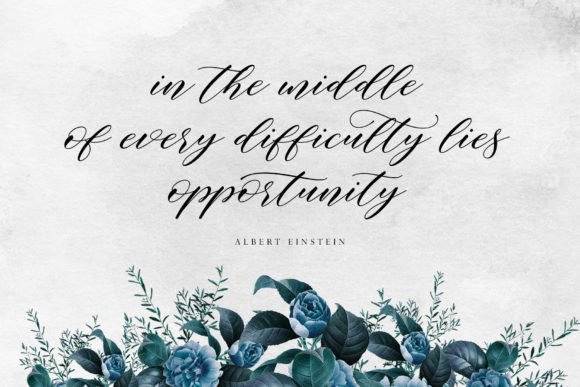
Introduction to Matilha Font
Have you ever stared at a blank sheet of paper, waiting for inspiration to strike? As designers, we’ve all been there. But what if that blank slate could be transformed into a stunning work of art with just the right font? Enter Matilha Font, a modern calligraphy font that’s about to revolutionize your creative projects.
This elegant, stylish, and soft italic font is the perfect addition to any design resource. With its high-quality glyphs and ligatures, you’ll be able to bring your ideas to life in a way that’s both sophisticated and eye-catching. And the best part? Matilha Font is available for free download, making it an invaluable resource for designers of all levels.
Whether you’re working on a logo, branding project, or homeware design, Matilha Font is sure to impress. Its transparent background and versatile style make it the perfect choice for any creative project, from posters and shopping bags to t-shirts and book covers.
Key Features of Matilha Font
- Includes a comprehensive character set, including Latin and Cyrillic alphabets
- Designed with a unique, modern aesthetic, perfect for designers seeking a distinctive look
Honest Review: Matilha Font
As a designer, I’m always on the lookout for high-quality design resources to elevate my creative projects. Recently, I stumbled upon the Matilha Font, and I’m excited to share my thoughts on it.
What works well: ✨ The Matilha Font is a free download, which is a huge plus in my book. It’s also a versatile font that can be used for a variety of design projects, from logos to branding materials. I appreciate the transparent background, which makes it easy to work with and customize.
Limitations: ⚠️ While the font is well-designed, I find it to be a bit too simplistic for more complex projects. It may not be the best choice for projects that require a lot of nuance or depth.
Overall, I’m impressed with the Matilha Font, and I would definitely recommend it to designers who are looking for a high-quality, free design resource. It’s a great addition to any designer’s toolkit, and I’m excited to see how it will elevate my future creative projects.
- Great for simple design projects
The Matilha Font is perfect for a variety of creative projects, including:
1. Social media graphics
2. Brochures and flyers
3. Business cards and resumes
What is the character set for Matilha Font?
Matilha Font includes a comprehensive character set, including uppercase and lowercase letters, numbers, punctuation marks, and special characters. The font also supports a wide range of languages, making it a versatile design resource for creative projects.